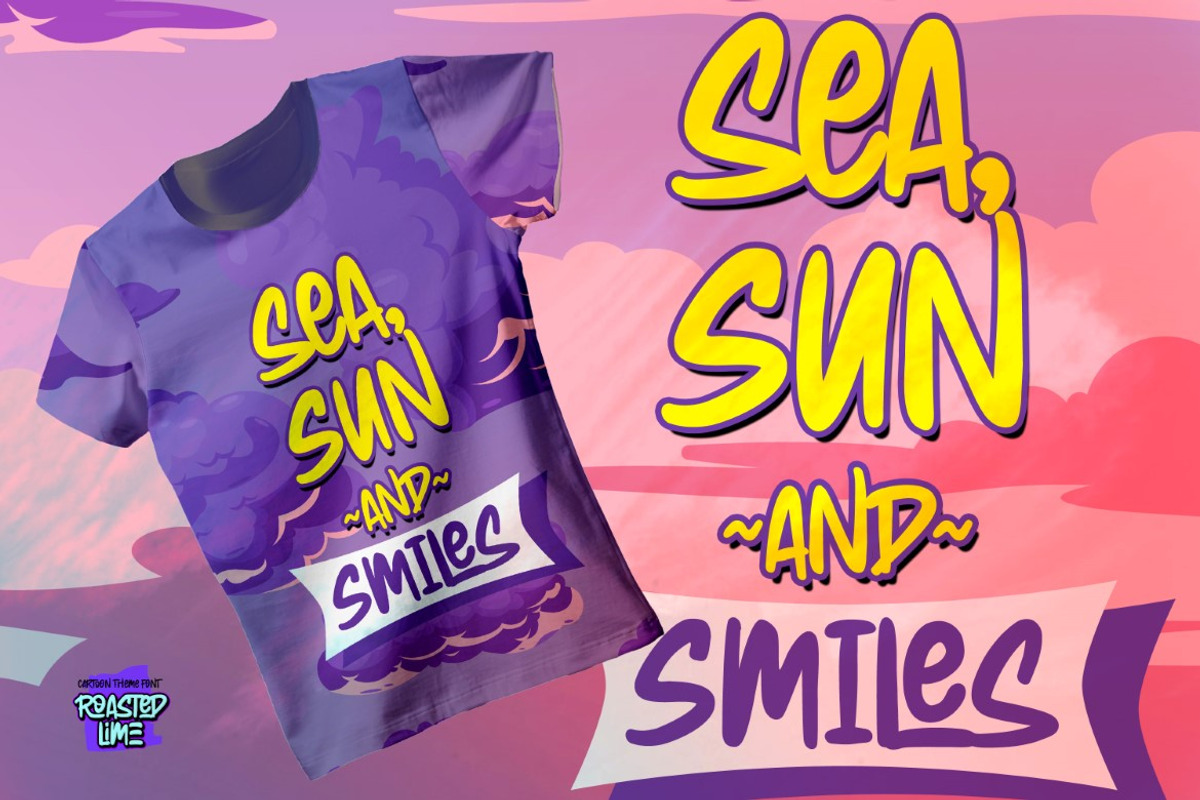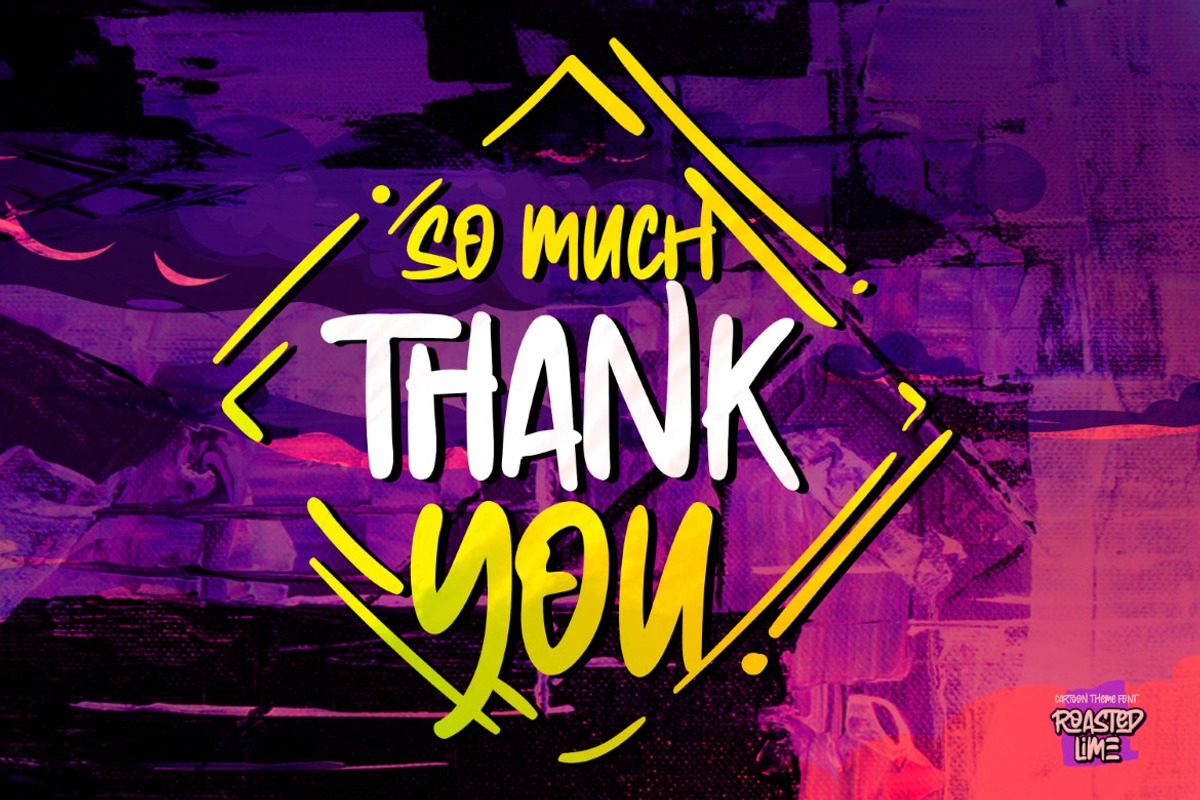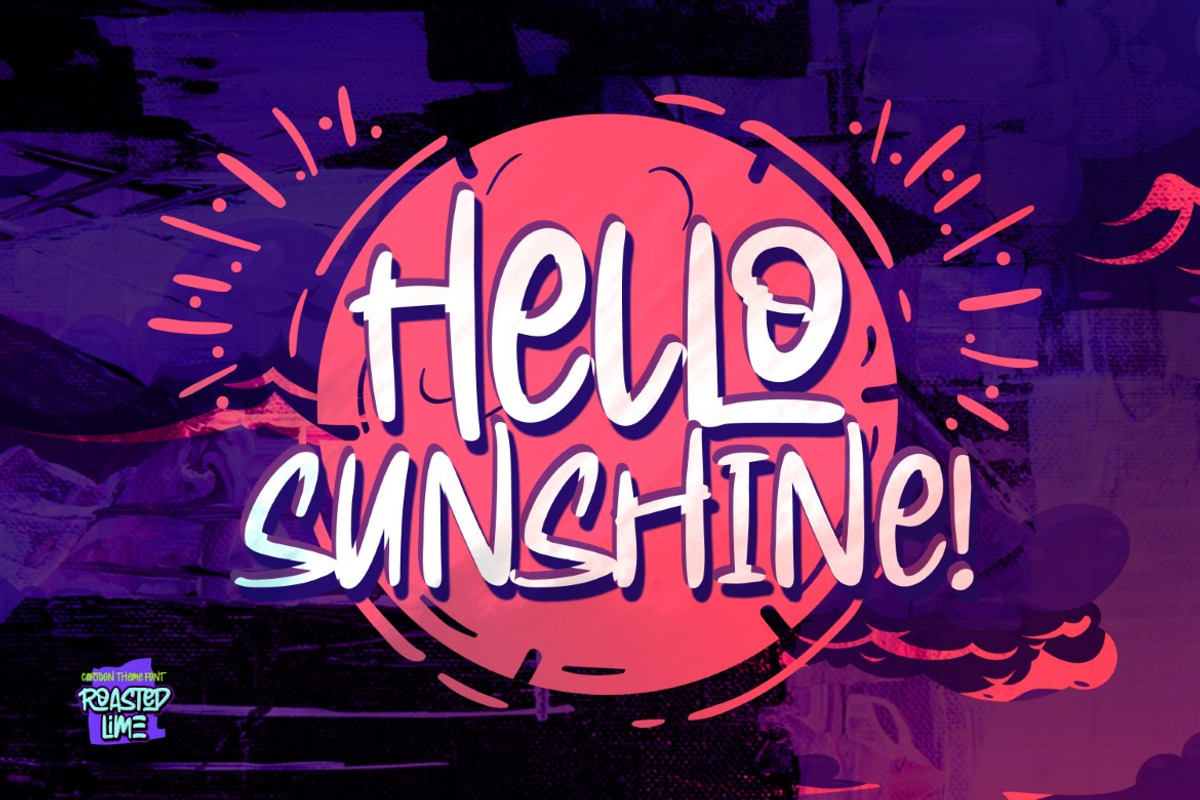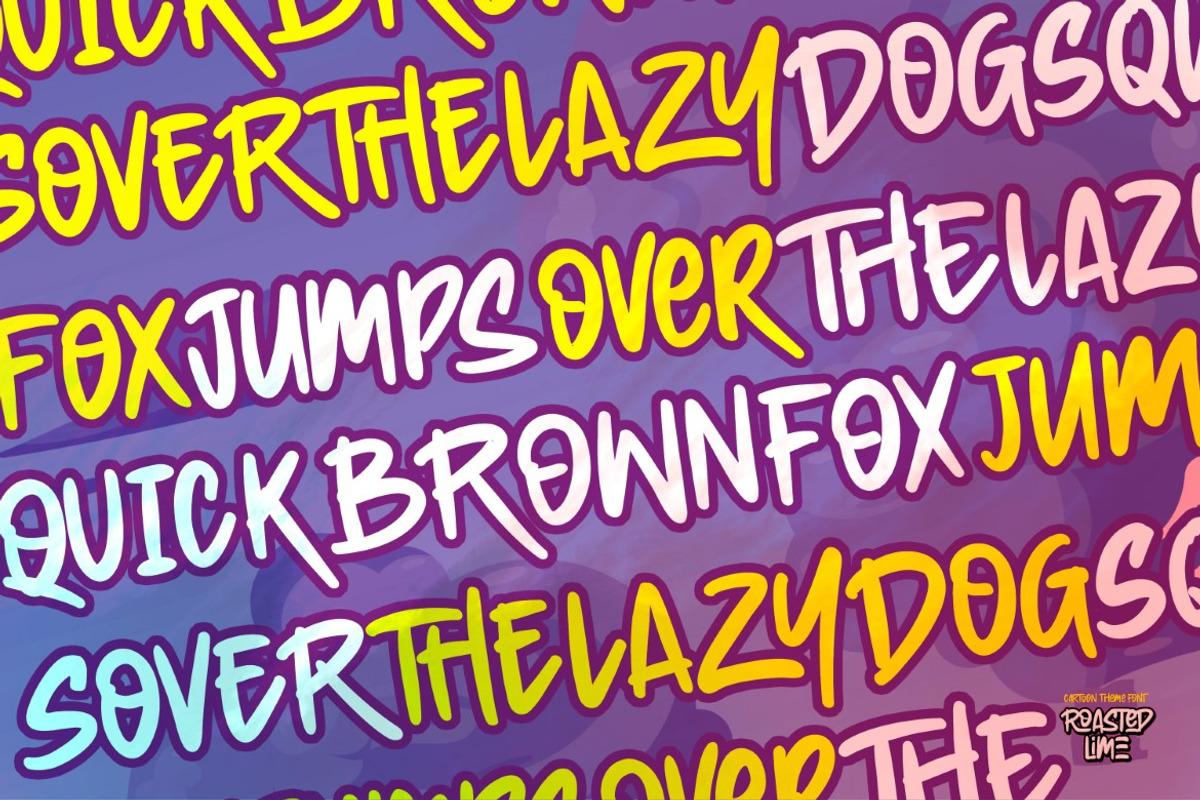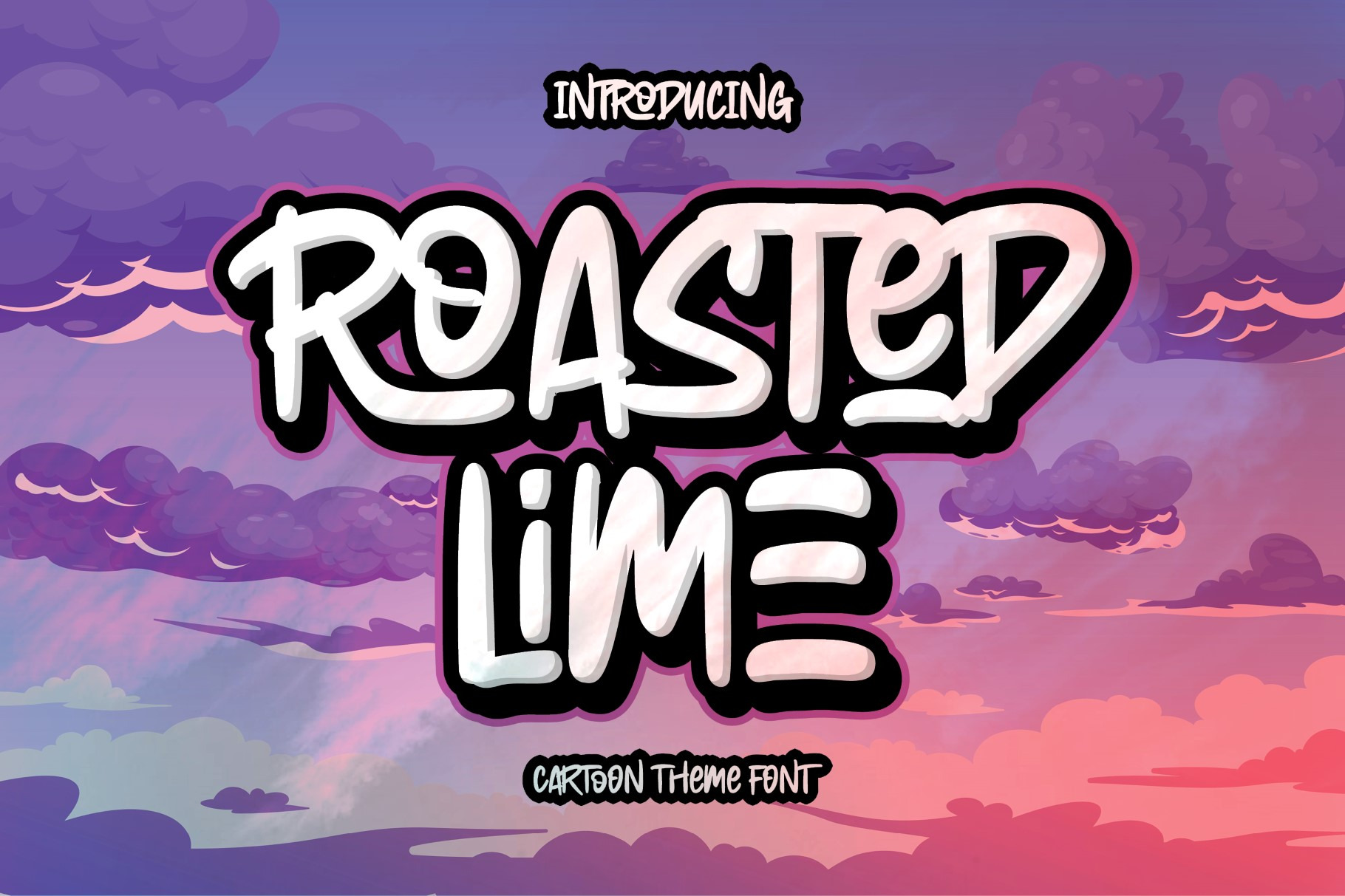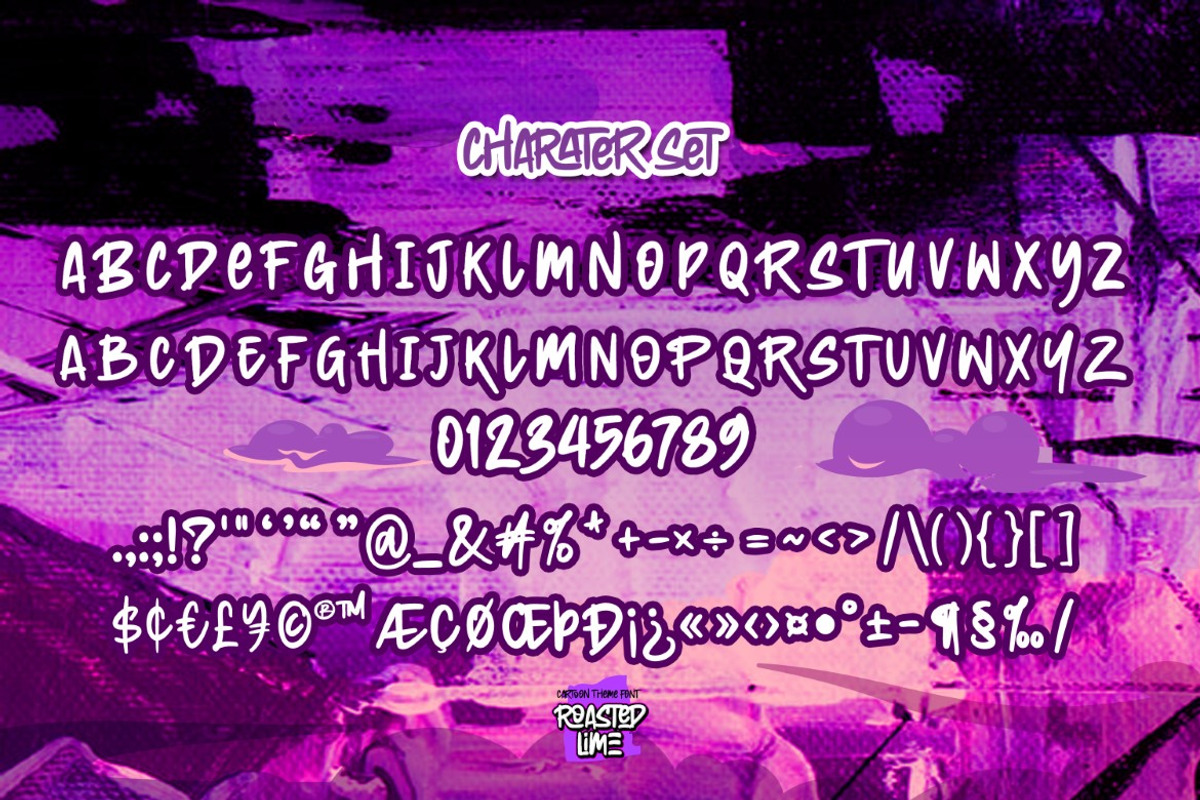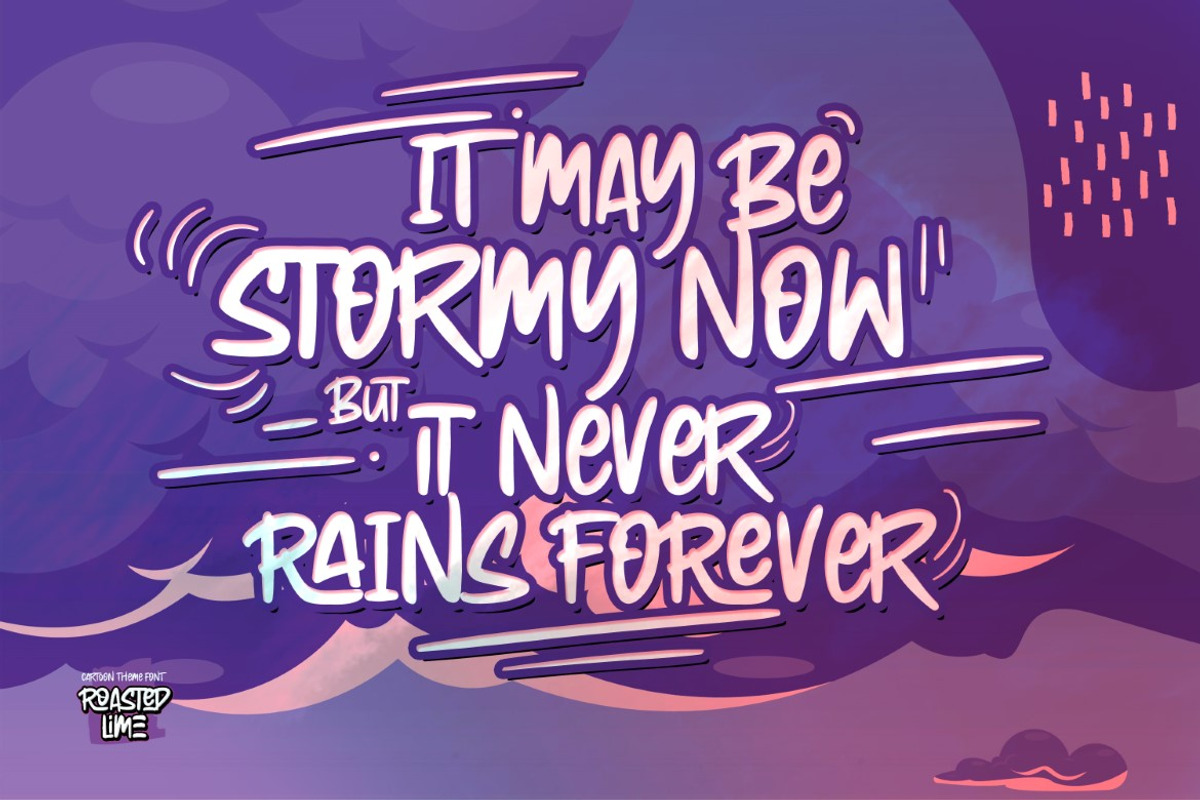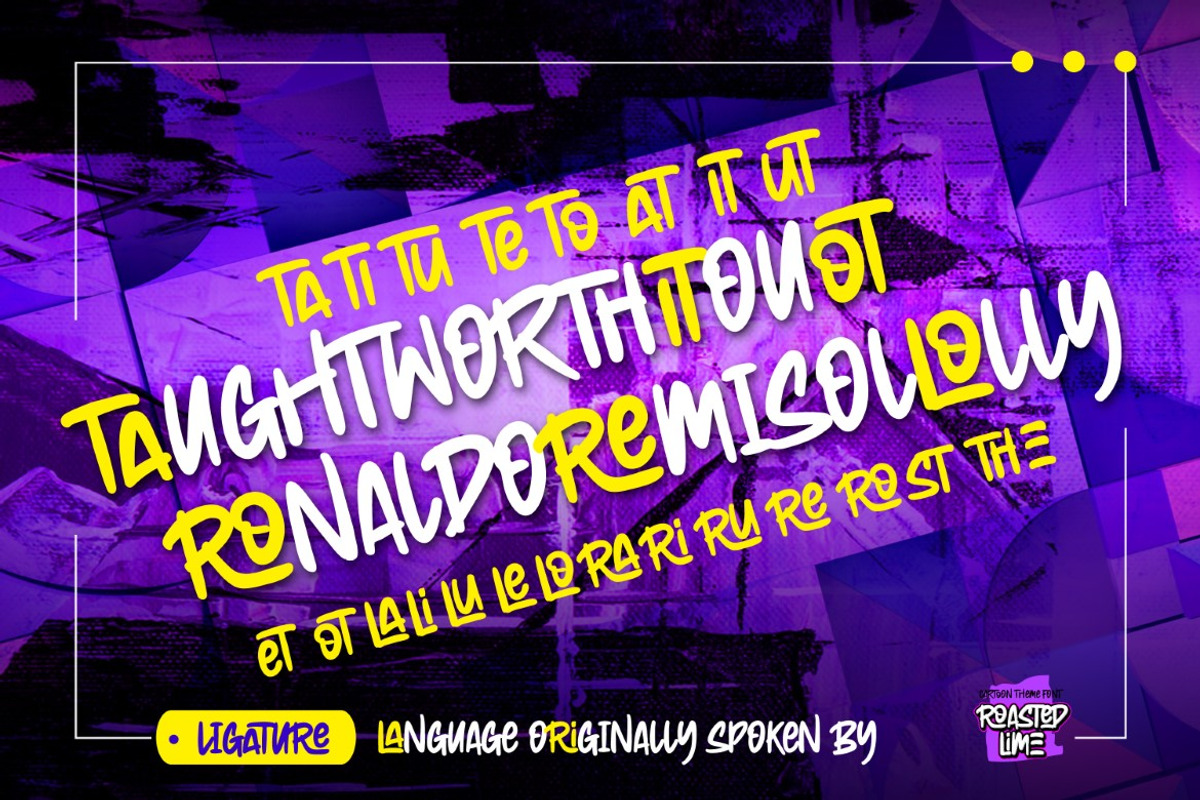
Roasted Lime - Cartoon Theme Font
Roasted Lime is a Cartoon Display Font with a lot of ligature. it will make your designs look modern, unique, and fun. It’s perfect for labels, quotes, posters, DIY projects, branding, packaging, greeting cards, websites, photography overlays, signs, window art, scrapbooking, tags and so much more!